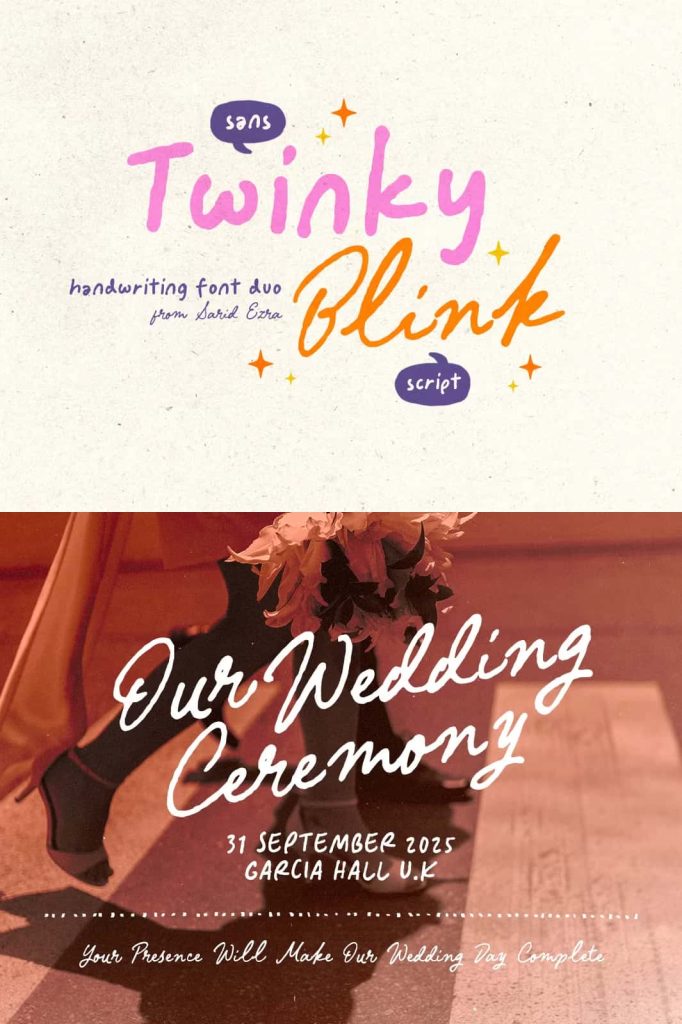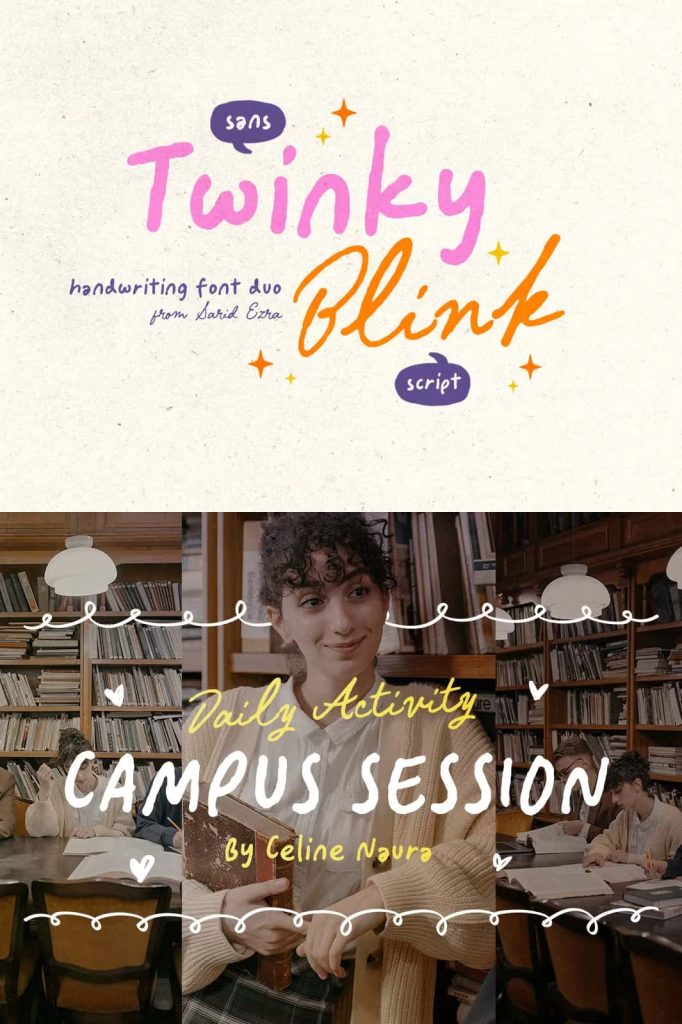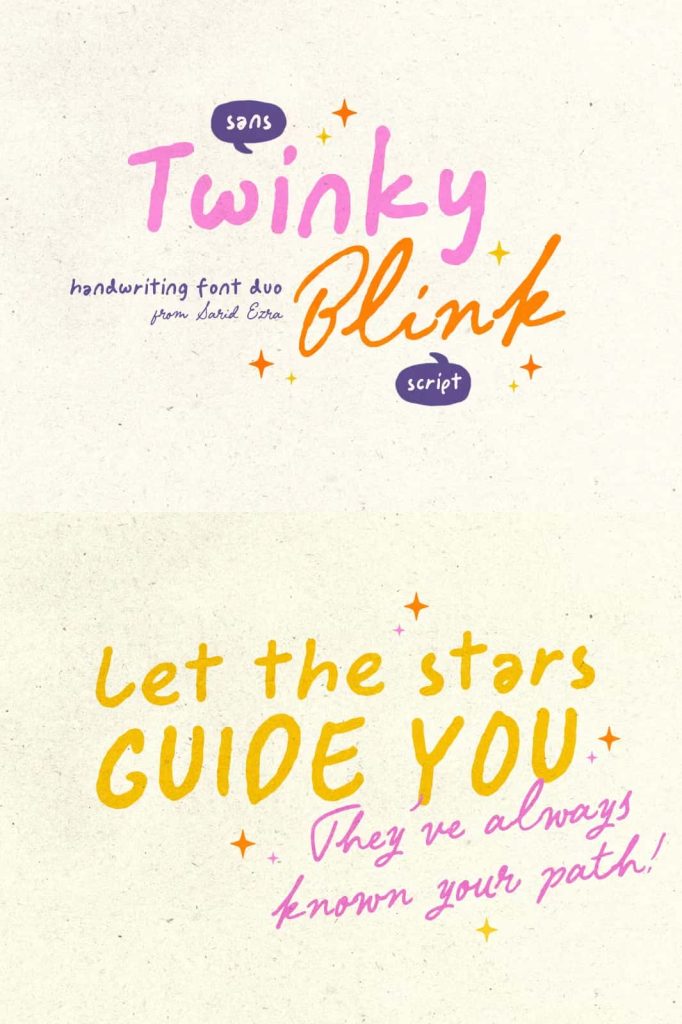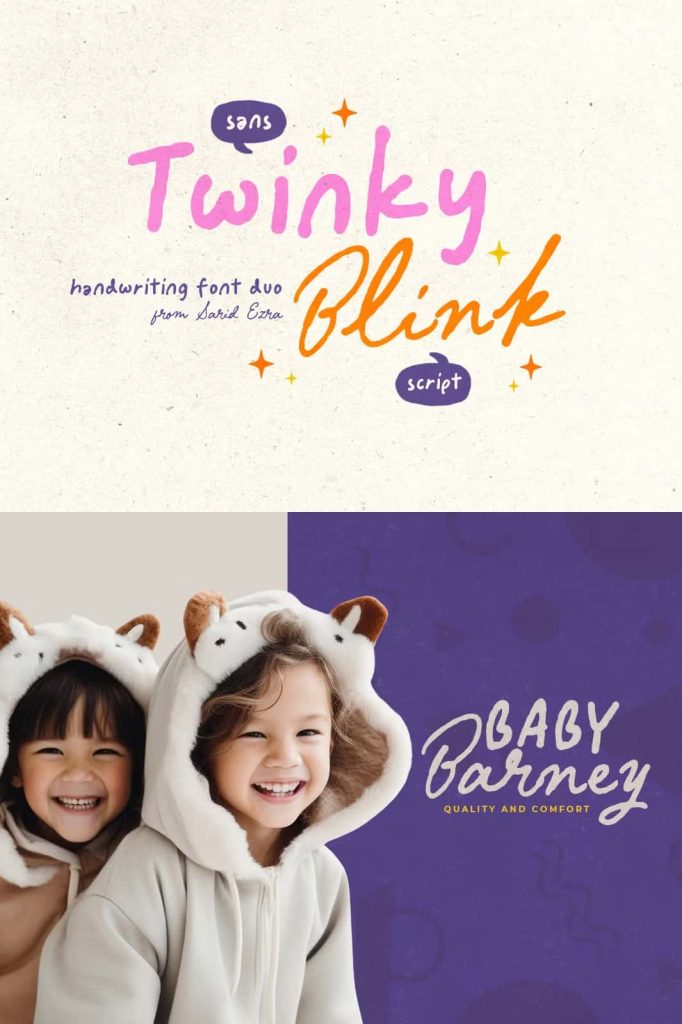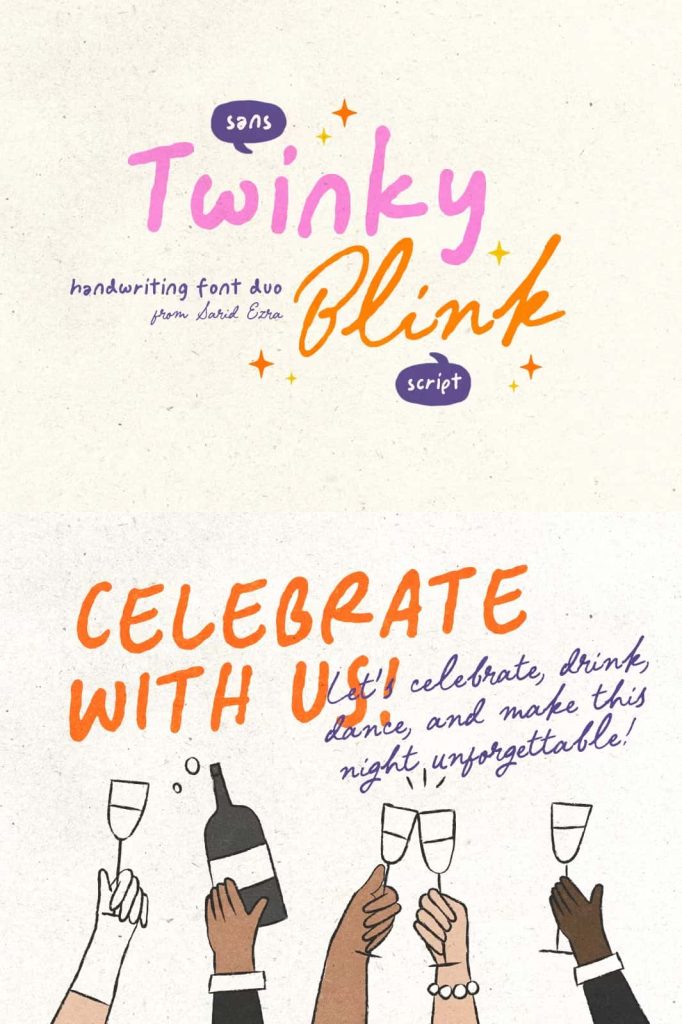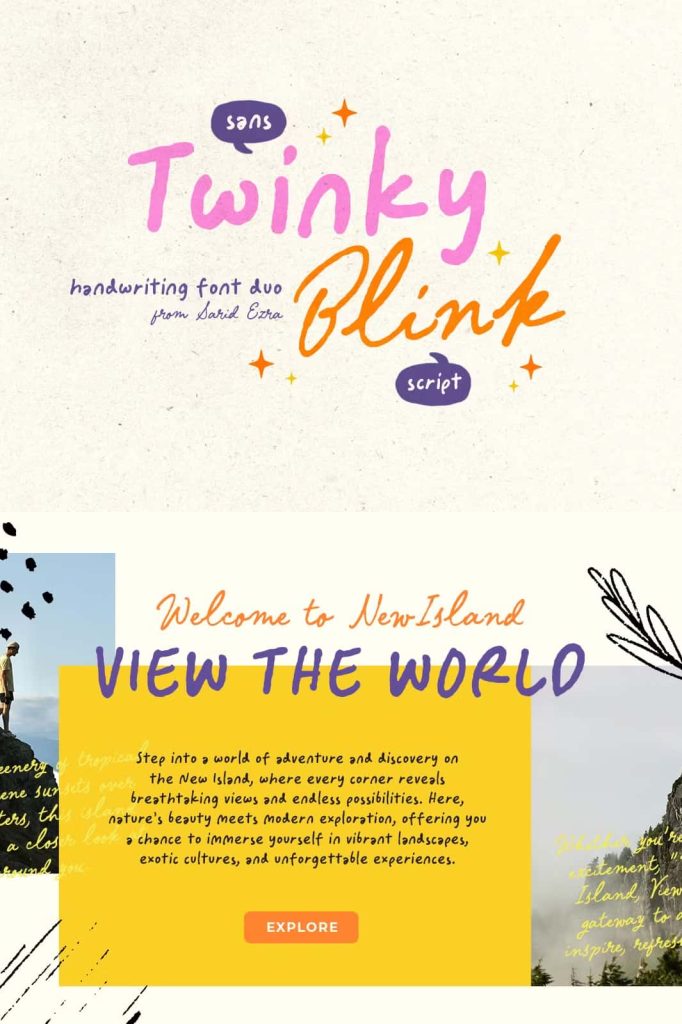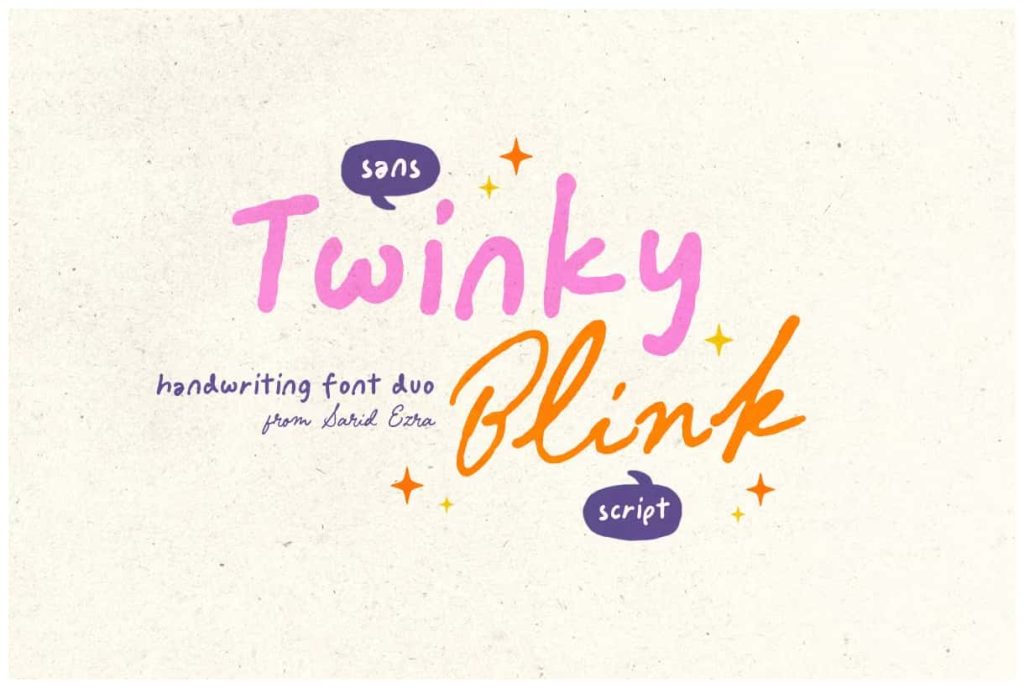
Twinky Blink – Cute Font DuoleastedJanuary 31, 2025Fonts Twinky Blink is a package of two handwritten fonts including Sans and Script that will compliment each other. Download